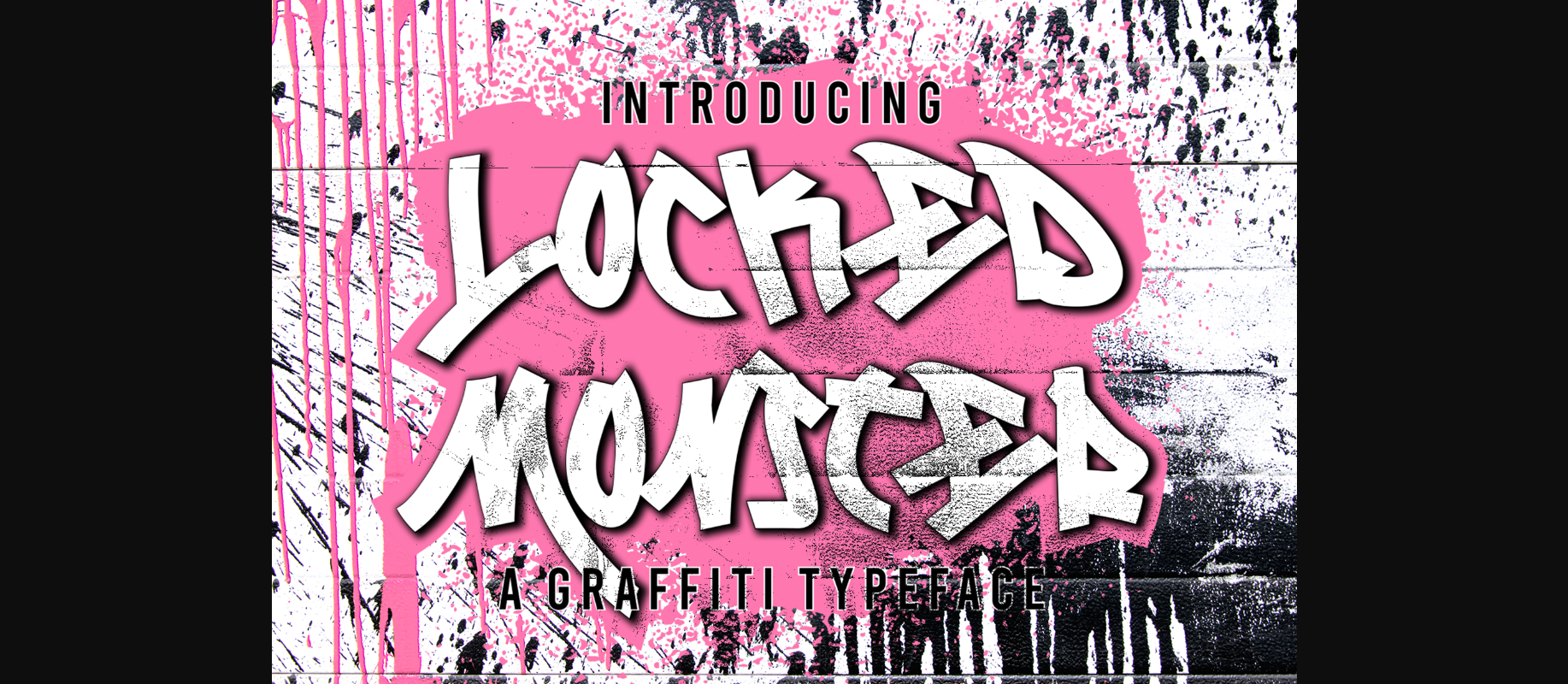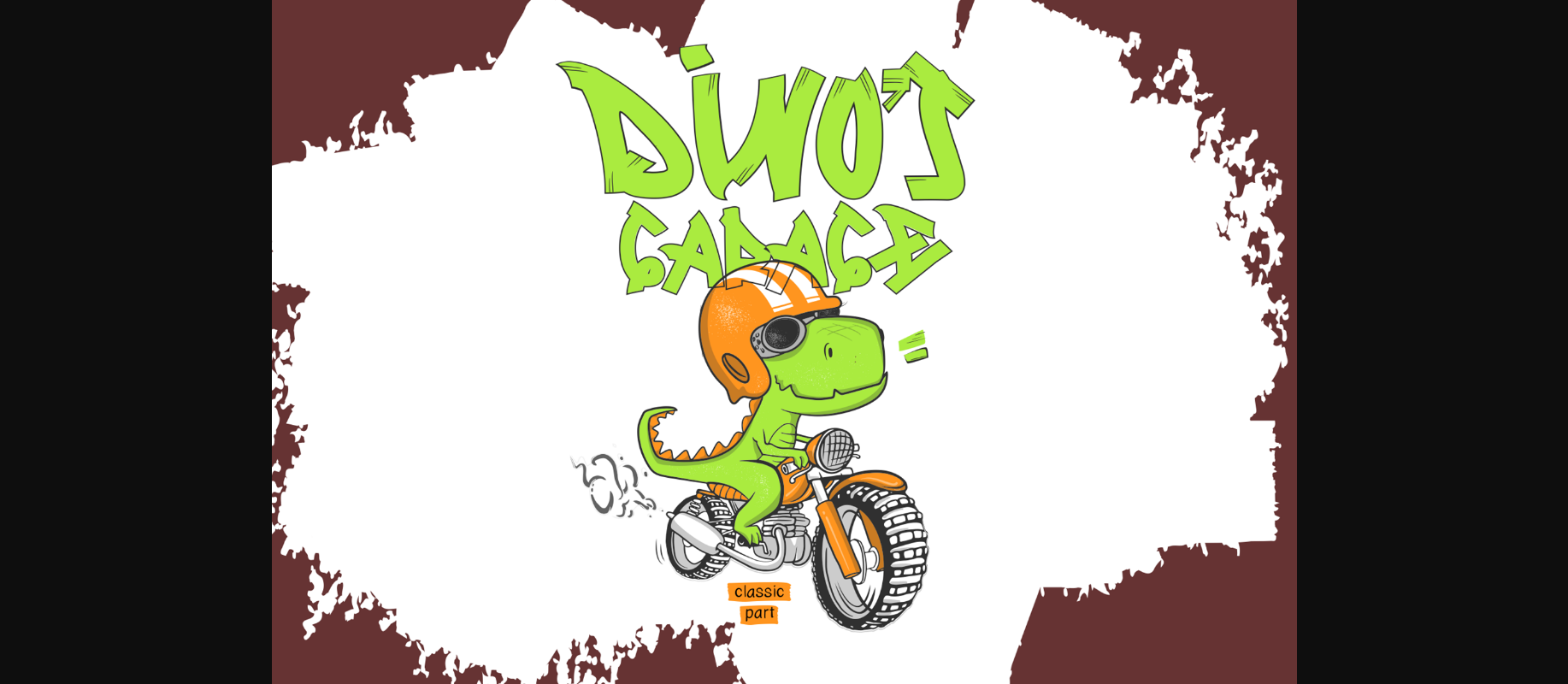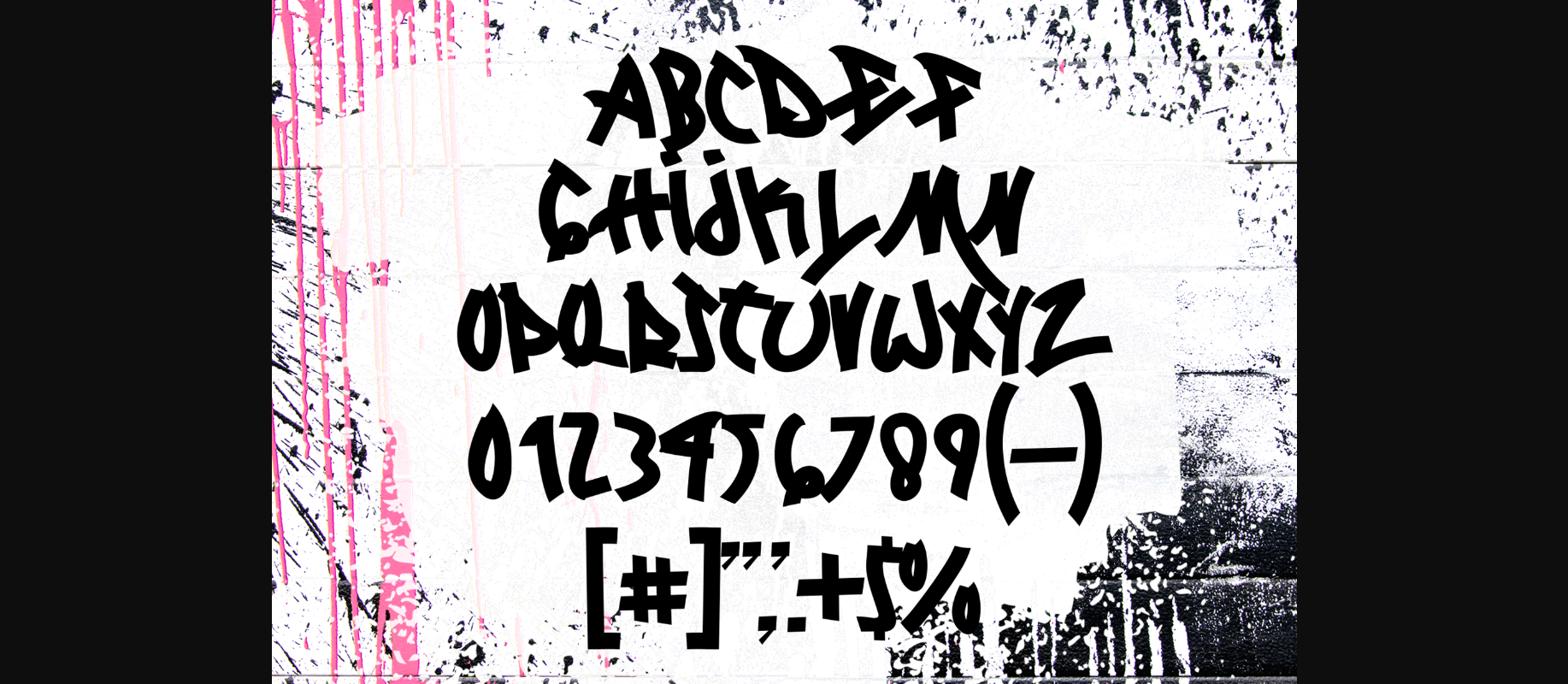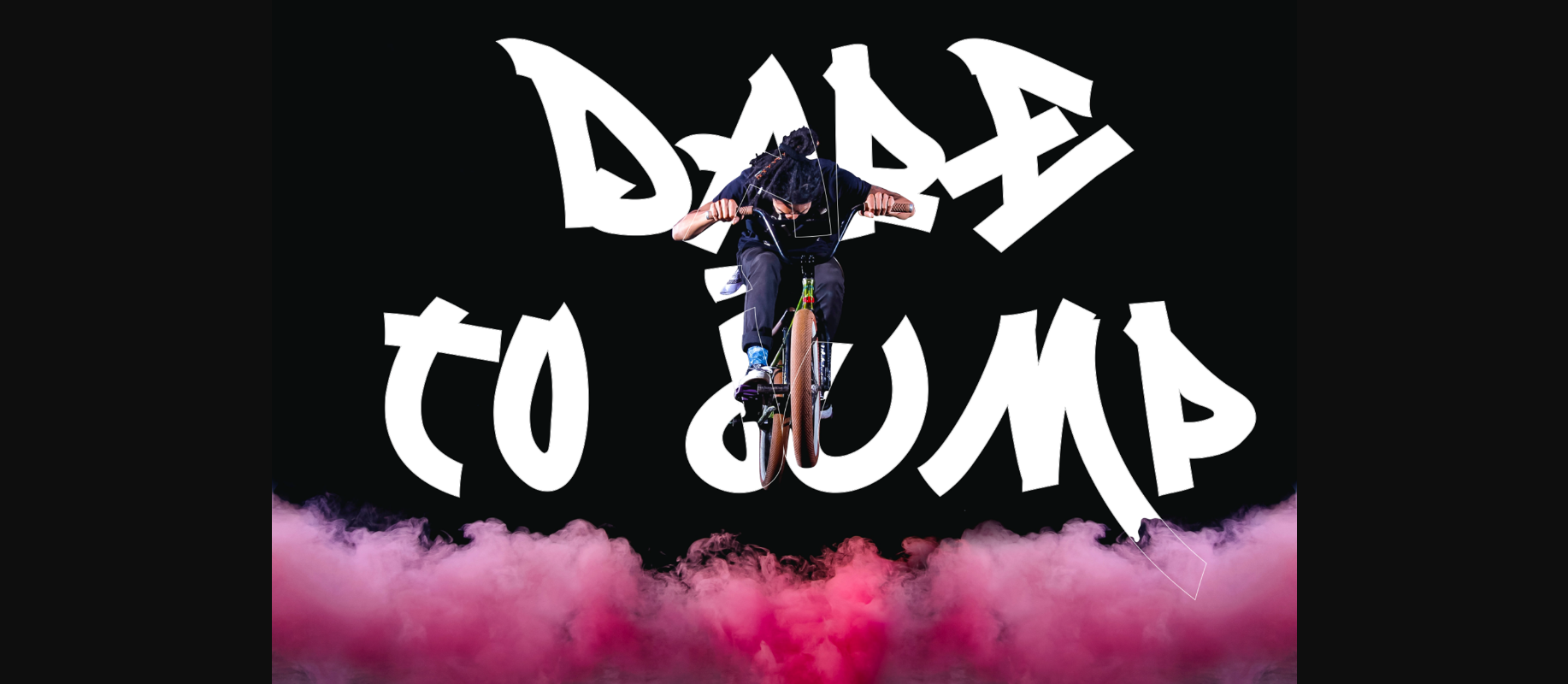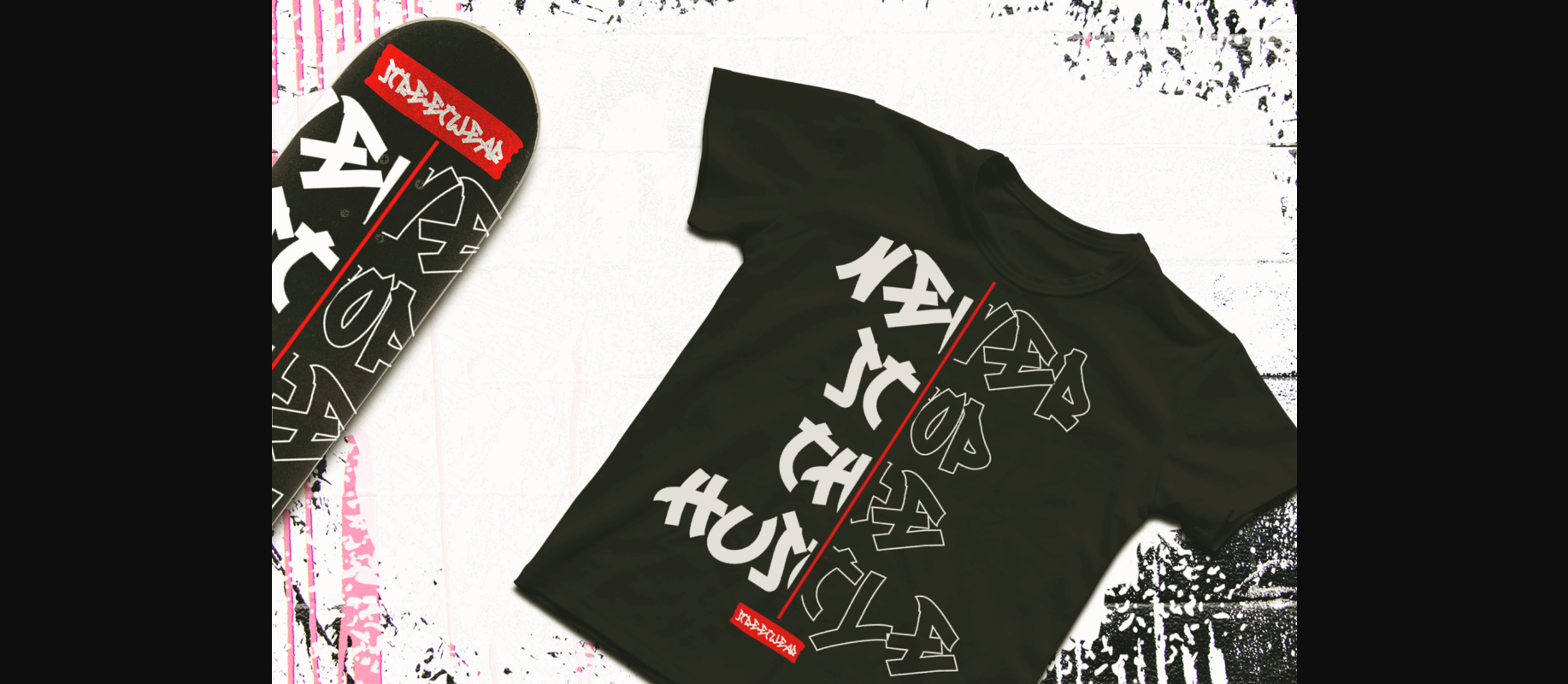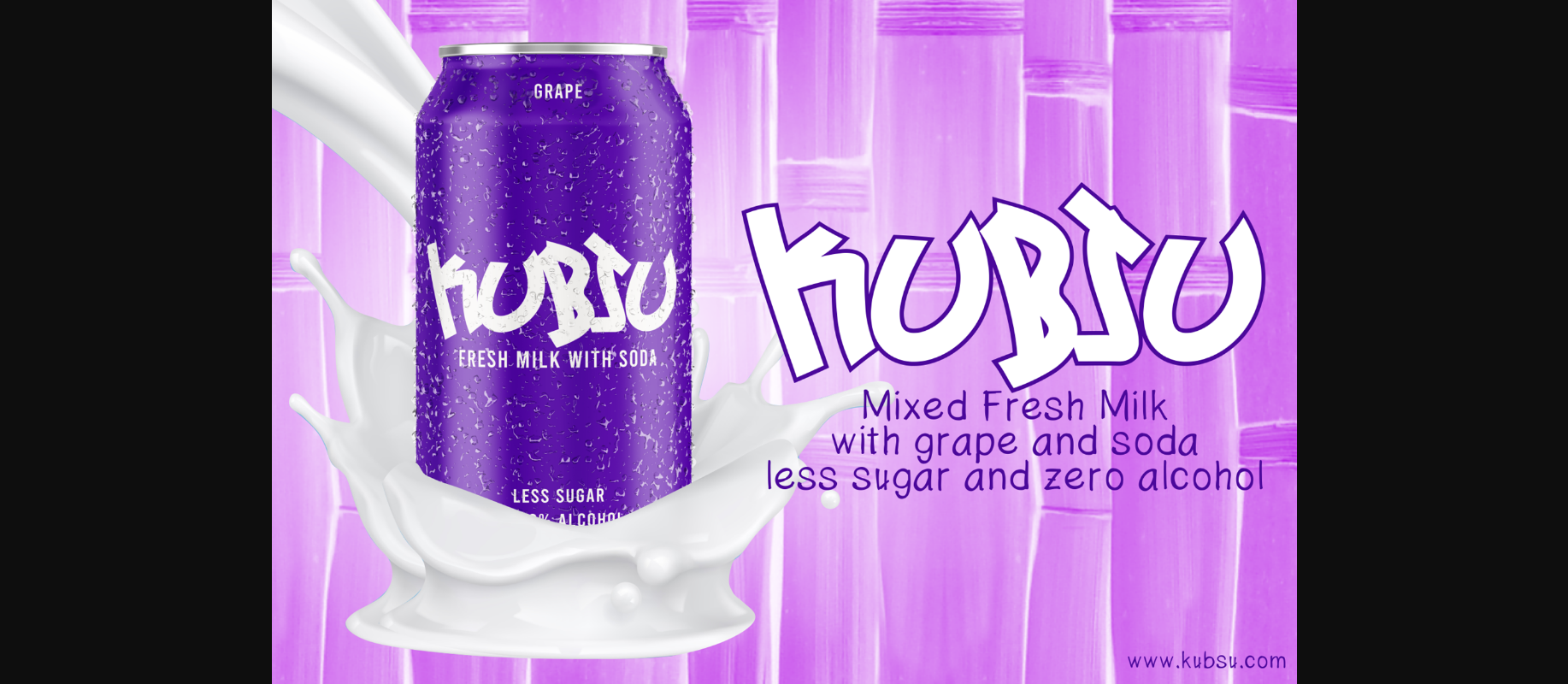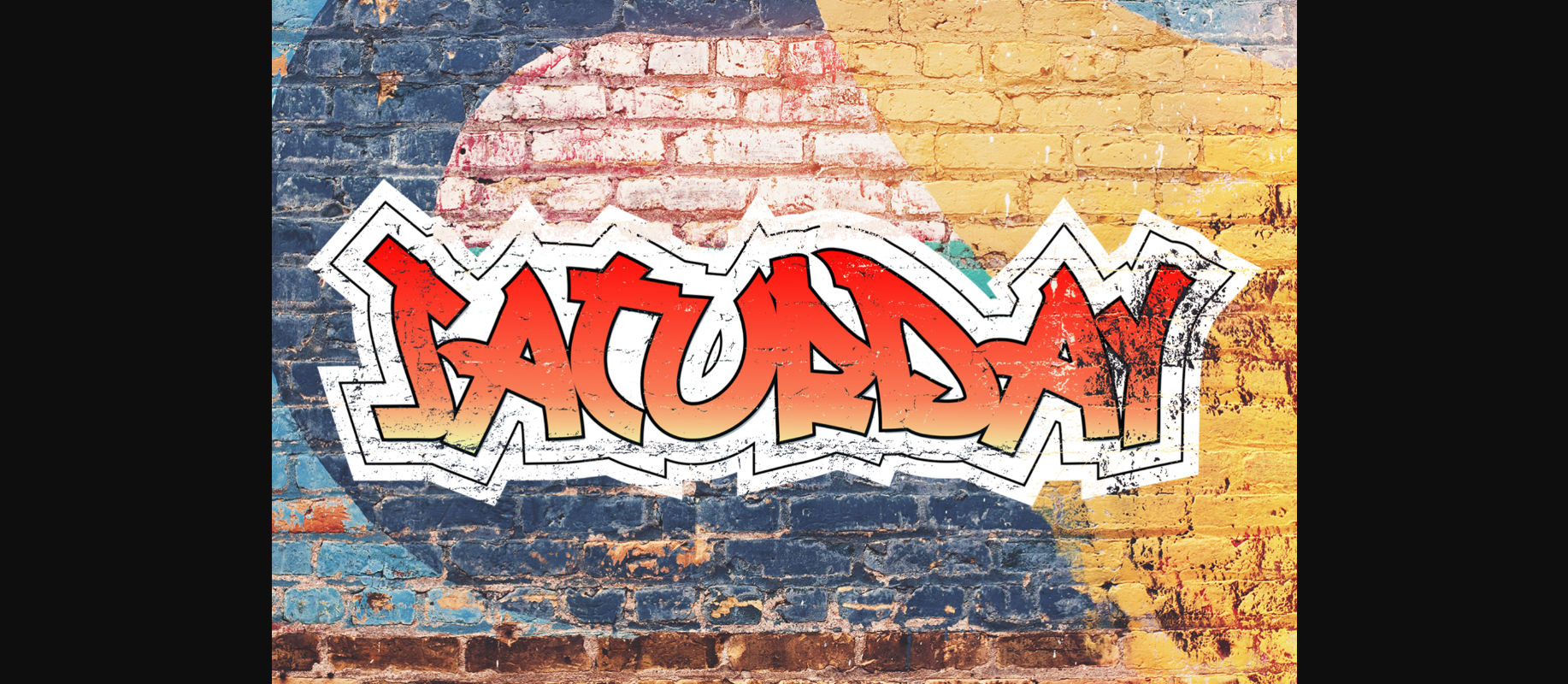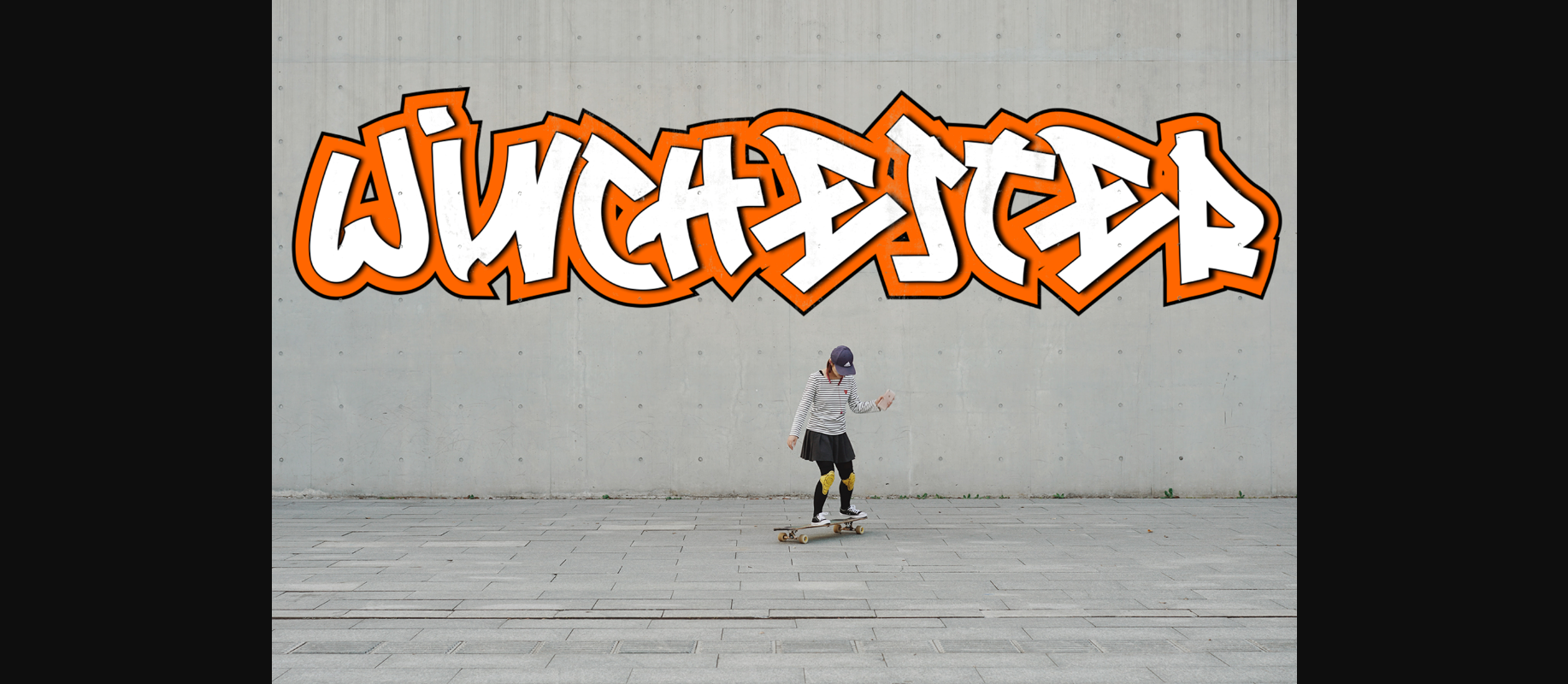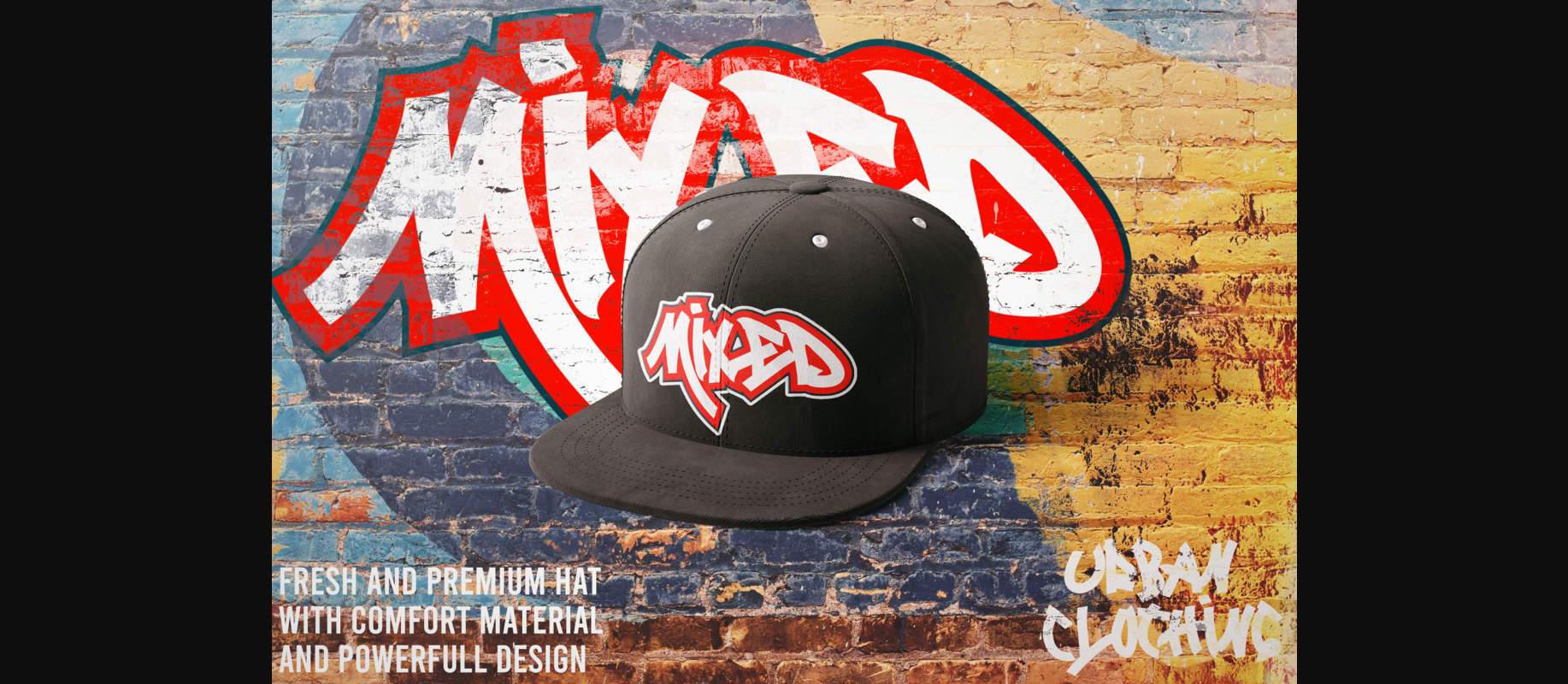
About Locked Monster Font
Locked Monster is a cool, dramatic and sharp decorative font, featuring a graffiti style. Add this font to your urban creations and notice how they stand out.